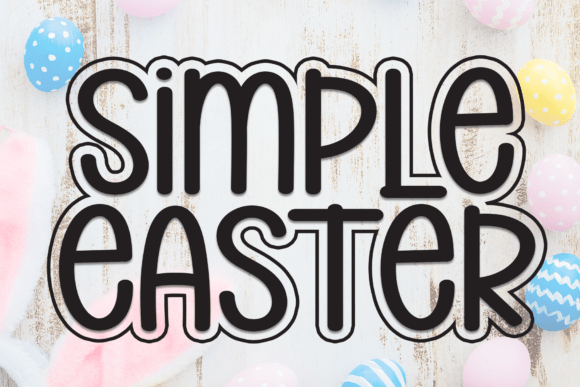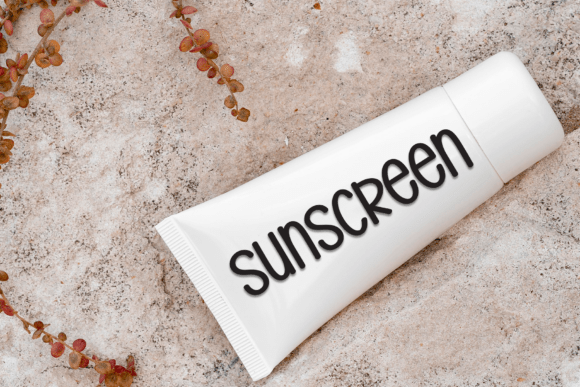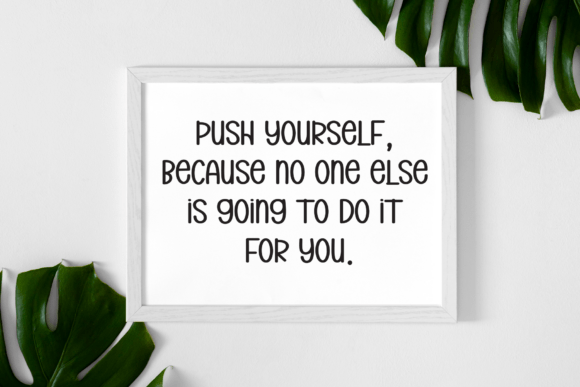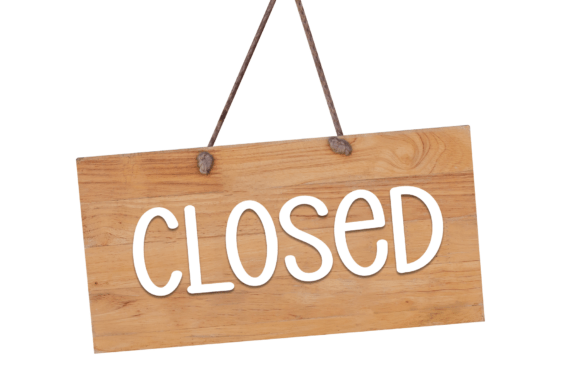
Simple Easter Font
About the Simple Easter Font
Experience the unique personality of Simple Easter Font, a font designed for impact. This handwritten display font brings charm and character to every letter. With its playful strokes and casual flow, it captures the essence of authentic handwriting—perfect for quotes, greeting cards, branding, and anything that needs a personal, heartfelt touch. Whether you’re crafting for kids or designing a modern logo, this font adds warmth and whimsy to your work.
Simple Easter Font Usage Examples
Simple Easter Font Example